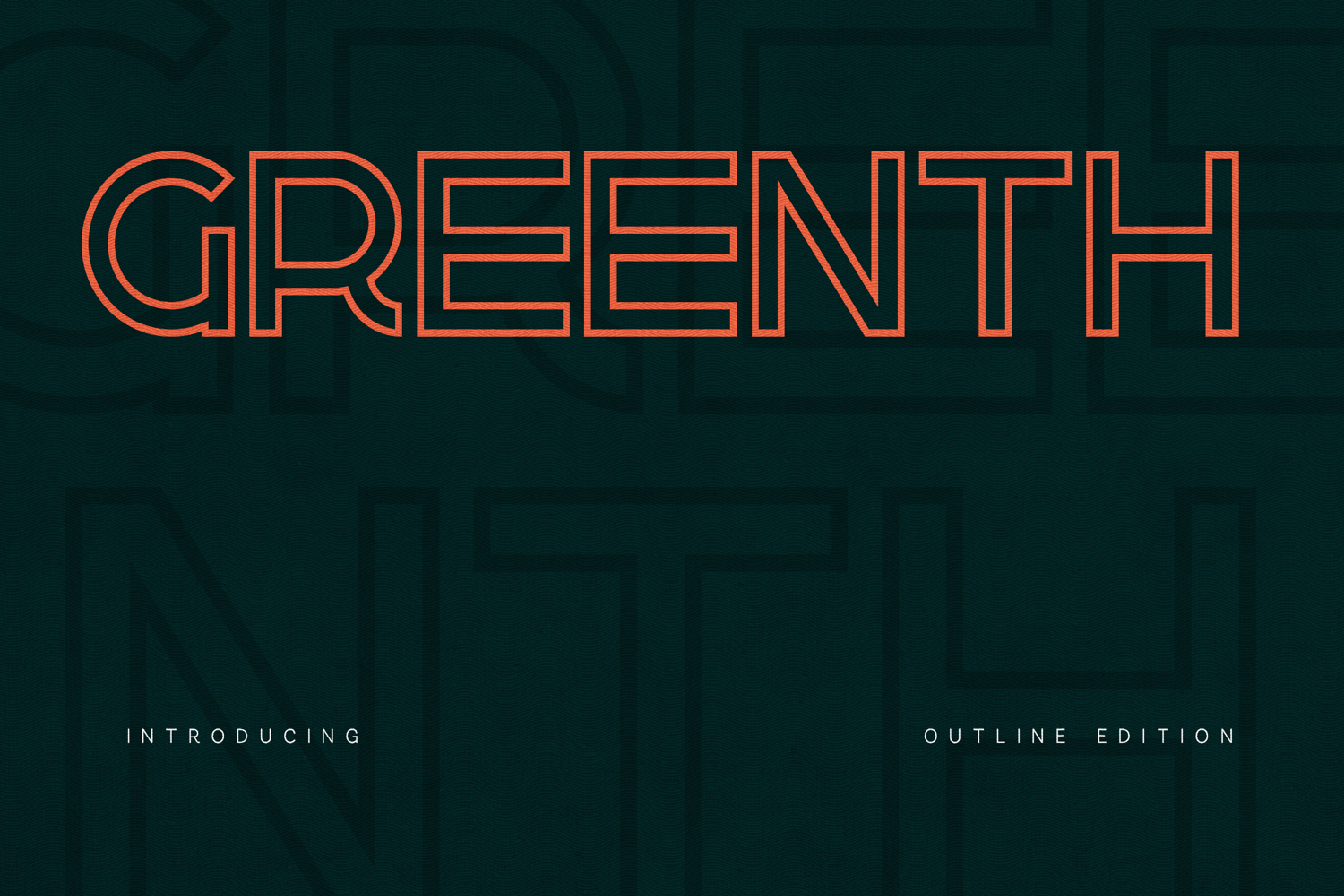
Modern Heritage Minimalist Sans Serif Font
Greenth Outline is a contemporary geometric display sans built on a clean monoline structure and distinctive double-stroke contour system.
Its balanced proportions and softened interior corners create a modern yet approachable voice — making it ideal for bold headlines, identity systems, and graphic-forward design work.
Designed to stand out at large sizes, Greenth Outline thrives in posters, branding, and cultural projects that demand presence without aggression.
• Modern branding
• Eco & lifestyle brands
• Posters & campaigns
• Streetwear design
• Creative studios
• Packaging systems
• Digital graphics